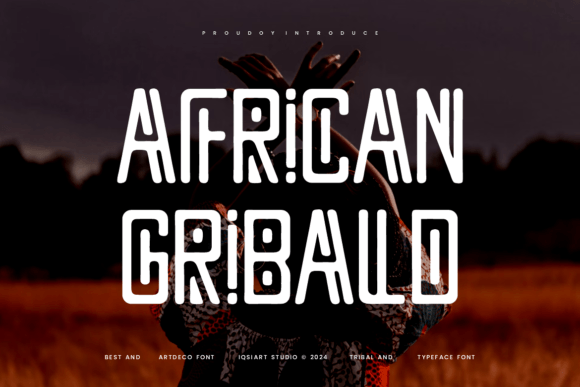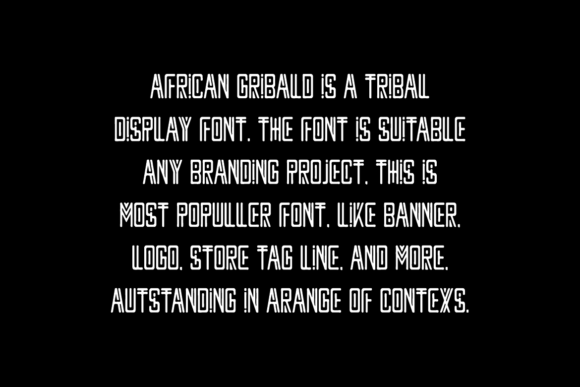
African Gribald Font
African Gribald is a unique art deco font with a tribal feel. It combines bold, geometric shapes with traditional African patterns, creating a stylish and cultural look. Perfect for posters, logos, or any creative project that needs a mix of modern and tribal design.